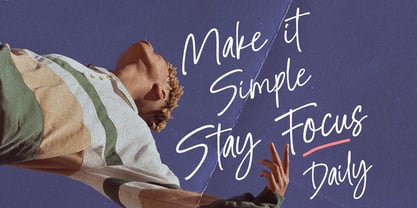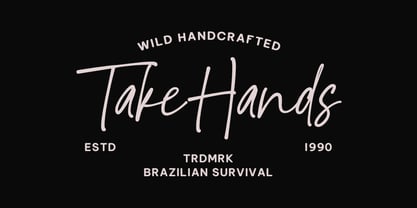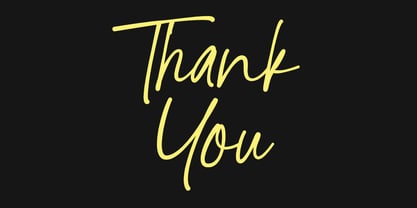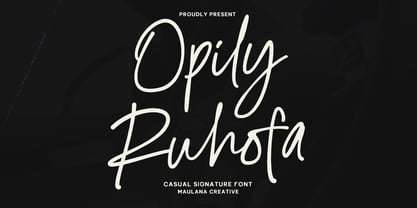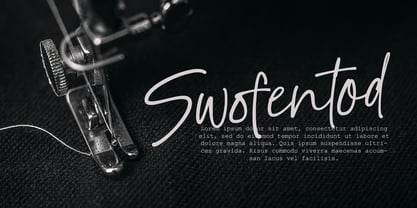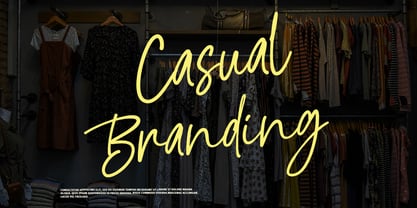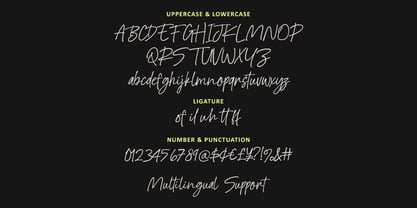
MC Opily Ruhofa
by Maulana Creative
The MC Opily Ruhofa Font Family was designed by Gilang Maulana and published by Maulana Creative. MC Opily Ruhofa contains 1 styles. More about this family
Opily Ruhofa is a wild, handcrafted signature font that perfectly balances elegance with a raw, casual energy. Designed by Maulana Creative, this font features natural flowing strokes and stylish ligatures that mimic authentic handwriting. It is the ideal choice for branding projects, luxury fashion labels, lifestyle photography overlays, and modern logos looking for a personal, human touch. Whether you're designing a high end "Casual Branding" campaign or a "Wild Handcrafted" editorial piece, Opily Ruhofa brings a sophisticated yet effortless aesthetic to your work.
Designers: Gilang Maulana
Foundry: Maulana Creative